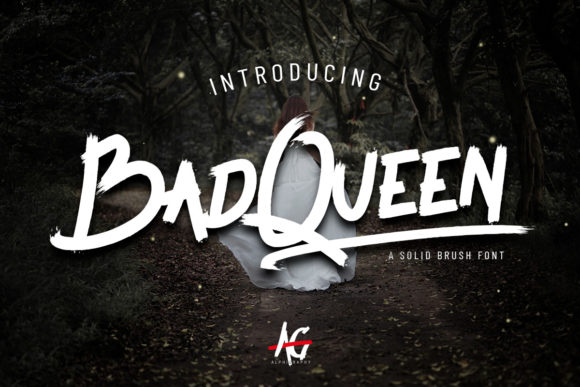
Introducing Bad Queen Font, the unparalleled display font that will ignite your designs with a burst of boldness and elegance. Crafted by the skilled hands of alphigraphy, Bad Queen is not just a font; it's a masterpiece that dances across the screen, captivating all who lay their eyes upon it.
With its unwavering stance, Bad Queen commands attention, demanding to be seen and admired. Each letter exudes confidence, adorned with sharp edges and sweeping curves that speak of royalty and power. It's a font that refuses to blend into the background, demanding the spotlight in any design project it graces.
Step into a world of limitless creativity with Bad Queen Font. Its versatility knows no bounds, effortlessly adapting to a myriad of design endeavors. Whether you're crafting logos that scream for attention, designing flyers that leave a lasting impression, or conjuring social media posts that captivate your audience, Bad Queen stands ready to elevate your designs to new heights.
Unleash the inner queen within your designs with Bad Queen Font. Its bold strokes and regal demeanor will transform ordinary text into a visual feast, leaving your audience spellbound. They'll marvel at the intricate details and the sheer audacity of each letter, feeling the power of your message resonating deep within their souls.
Don't settle for ordinary fonts that fade into obscurity. Embrace the majesty of Bad Queen Font and watch as your designs take center stage, captivating all who encounter them. Experience the thrill of creating designs that leave an indelible mark, designs that speak volumes about your creativity and passion.
Immerse yourself in the world of Bad Queen Font, where boldness reigns supreme and beauty knows no limits. Unlock the true potential of your designs and let Bad Queen be your guiding light, leading you to a realm of creative expression that you never thought possible.